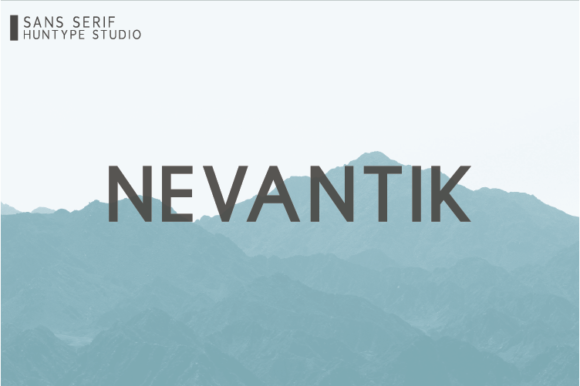
Introducing Nevantik Font, a masterpiece of contemporary typography, poised to revolutionize your creative ventures. This sans serif wonder, crafted with meticulous attention to detail by Huntype, empowers you to craft designs that resonate with the modern, minimalist aesthetic. Nevantik is not just a font; it's a gateway to a world brimming with boundless possibilities.
Let Nevantik's clean lines, generous kerning, and impeccable balance guide you in expressing your ideas with utmost clarity and impact. Whether you're a seasoned designer, an aspiring artist, or simply someone with a passion for typography, this font is your key to unlocking a realm of visual allure.
Immerse yourself in a symphony of styles, from the crisp precision of its regular weight to the delicate elegance of its thin variant. Let Nevantik's versatility captivate you as it seamlessly adapts to diverse projects, be it branding, web design, print materials, or social media graphics. Experience the joy of crafting harmonious designs that exude sophistication and charm.
With Nevantik as your creative companion, embark on a journey of visual storytelling, leaving an unforgettable mark on your audience. Express yourself with confidence, knowing that every letterform has been meticulously crafted to convey your message with style and clarity. Nevantik is more than a font; it's an invitation to unleash your imagination and create designs that stand the test of time.
Elevate your designs to new heights with Nevantik, the epitome of modern typography. Let its clean aesthetic and unwavering legibility transform your creative vision into a reality. The time for ordinary fonts is over; embrace the power of Nevantik and witness the remarkable impact it brings to your work.
Don't settle for mediocrity; choose Nevantik, the font that's synonymous with innovation and distinction. Embrace the future of design and elevate your projects to new realms of visual excellence.